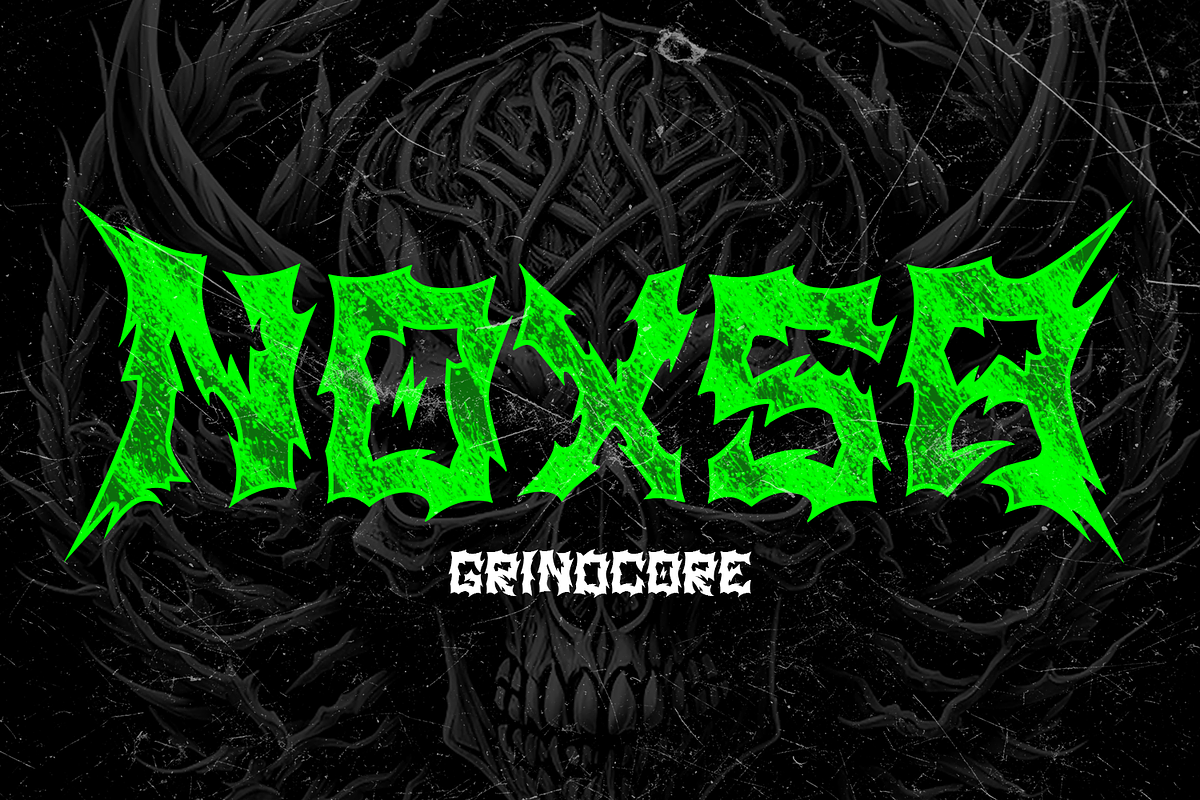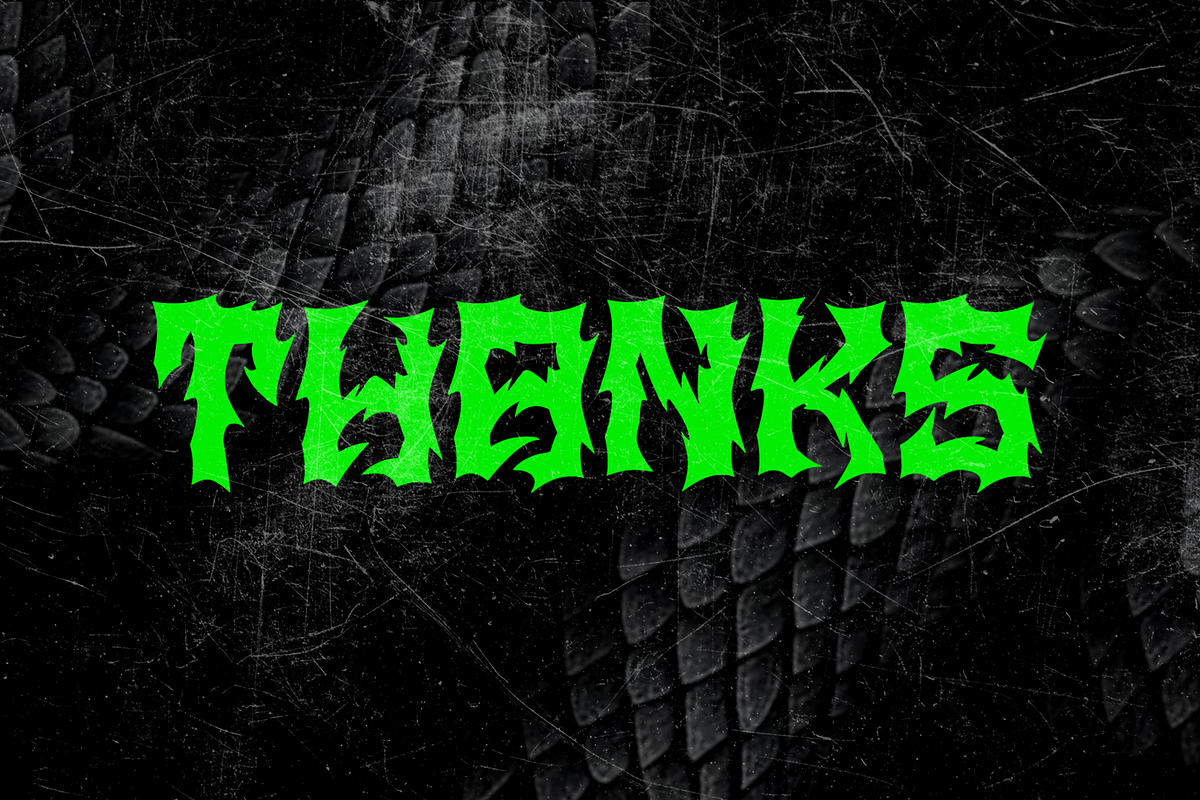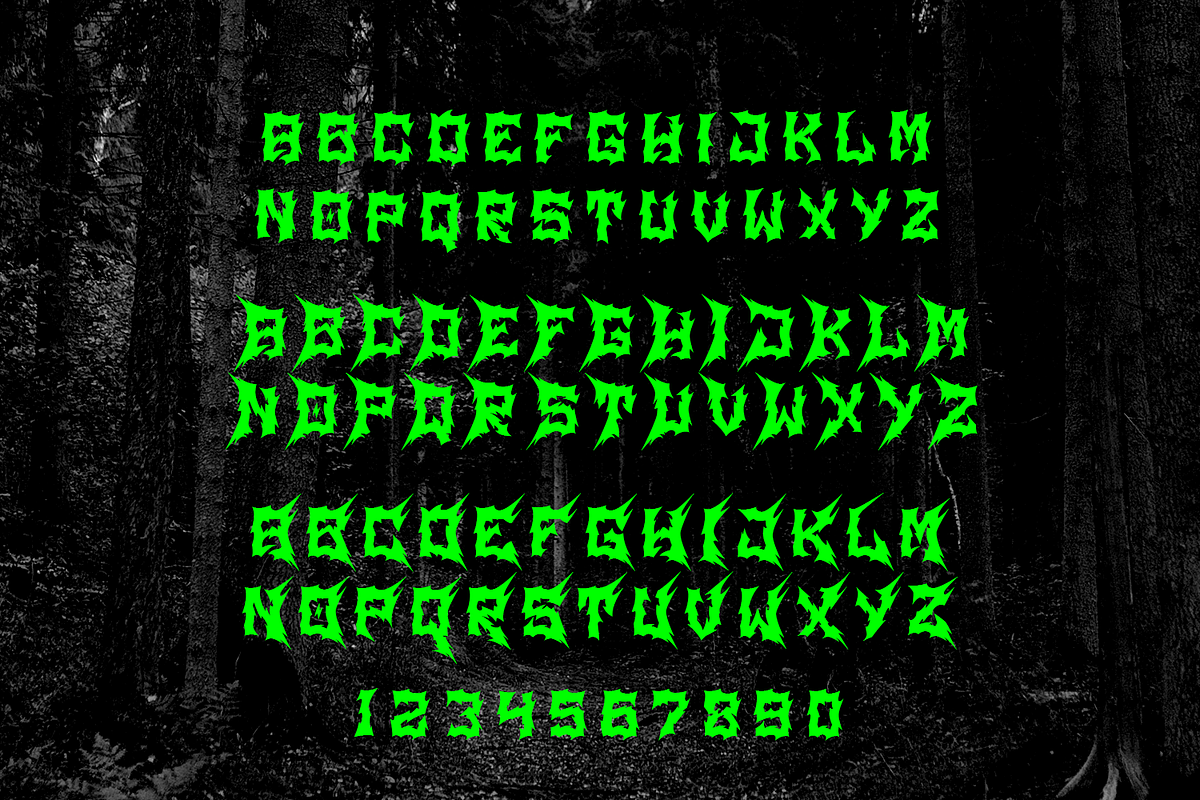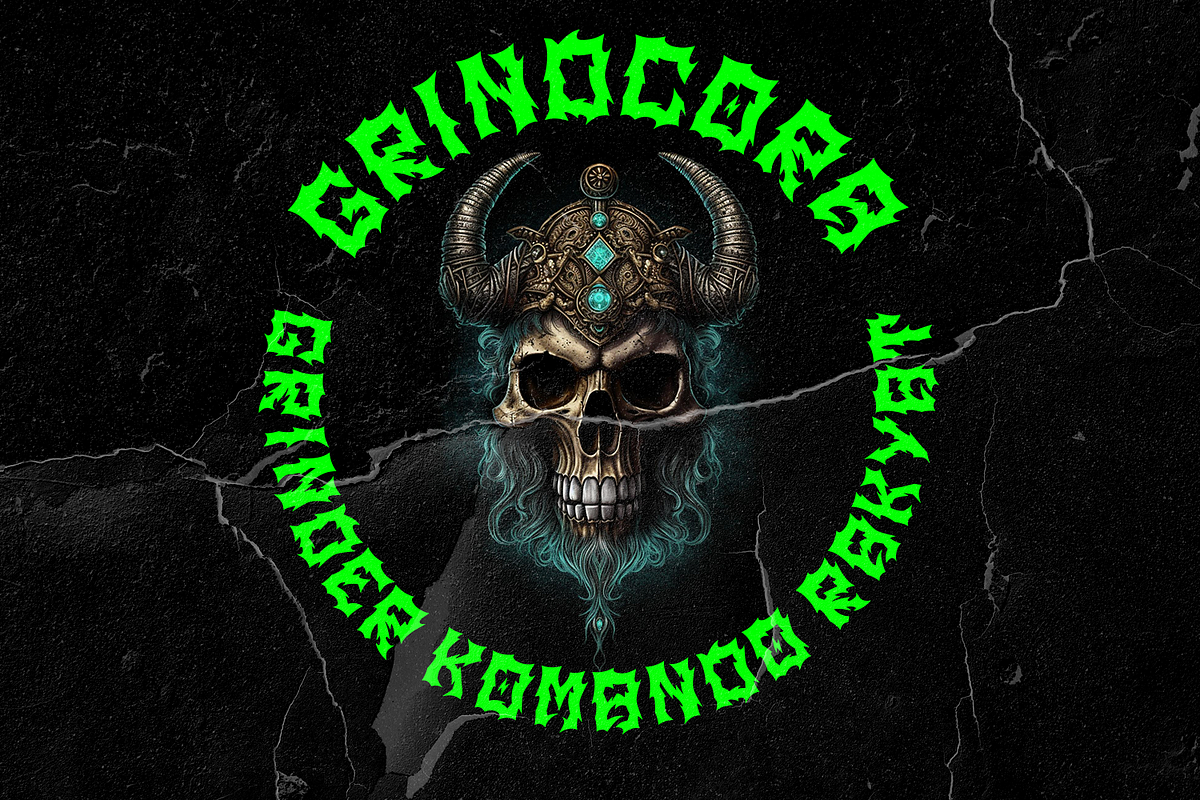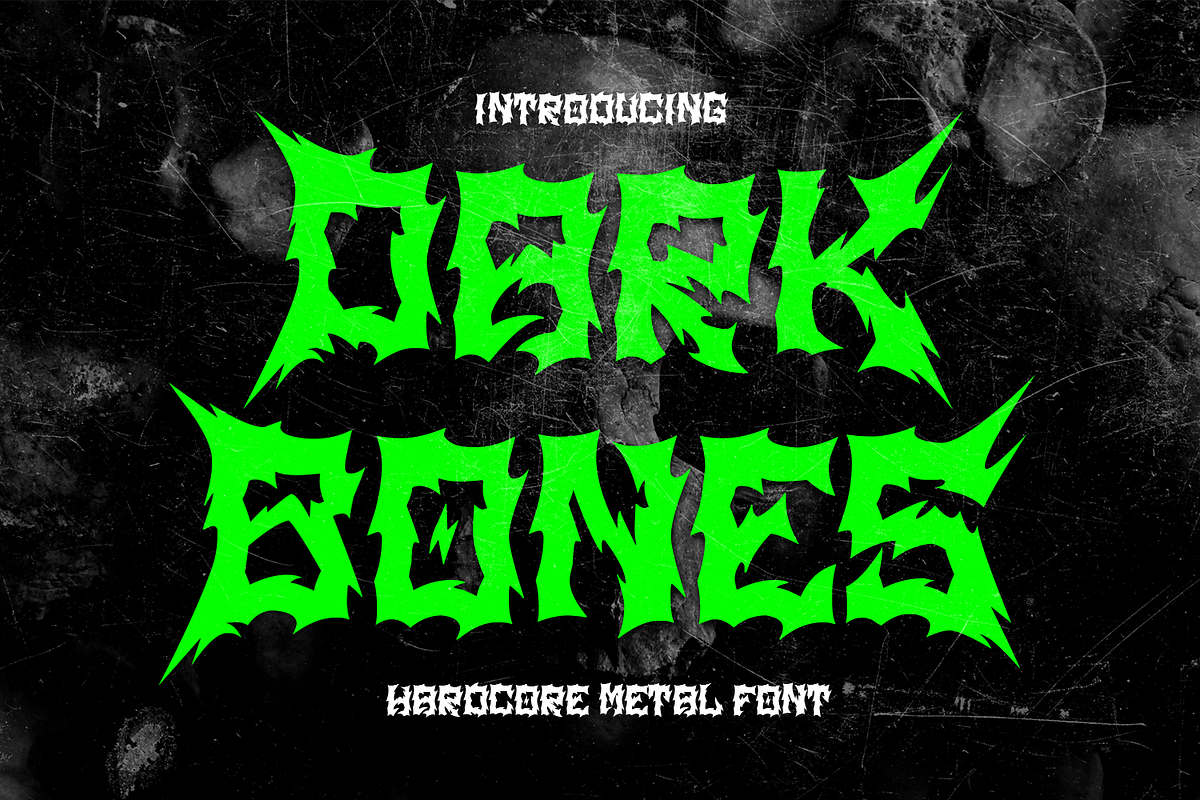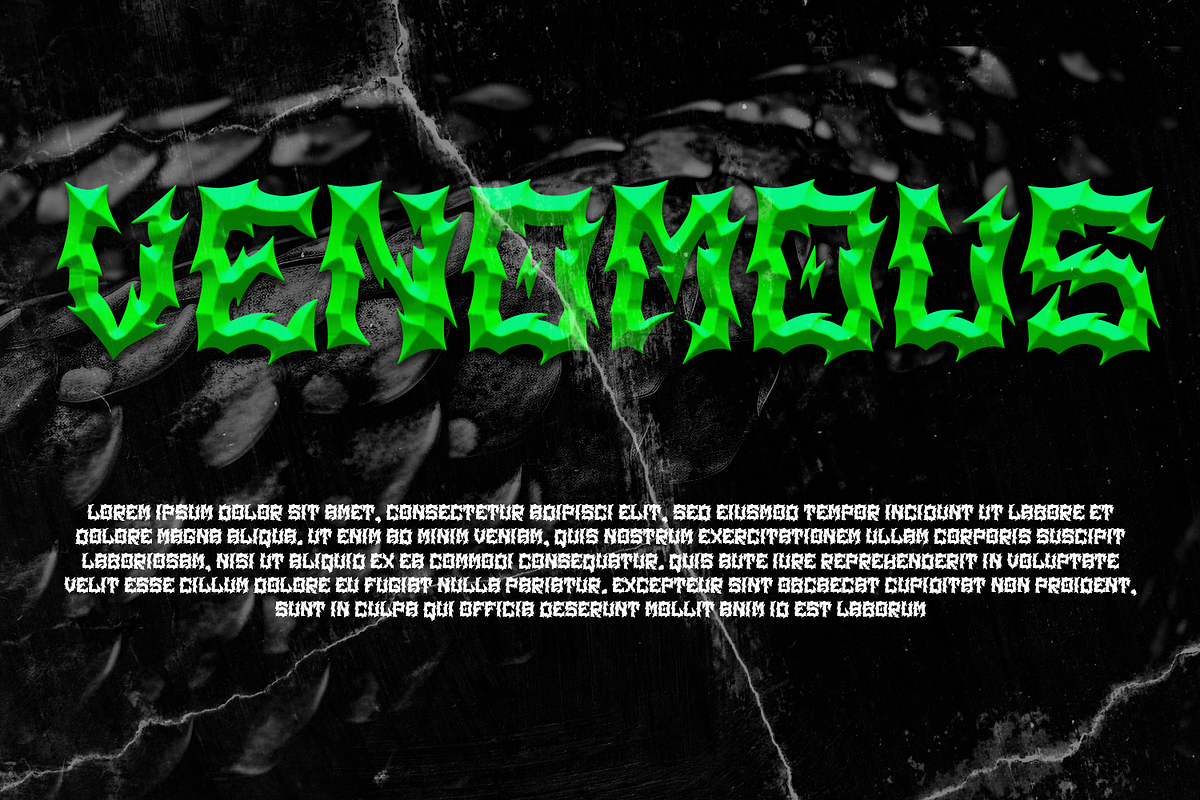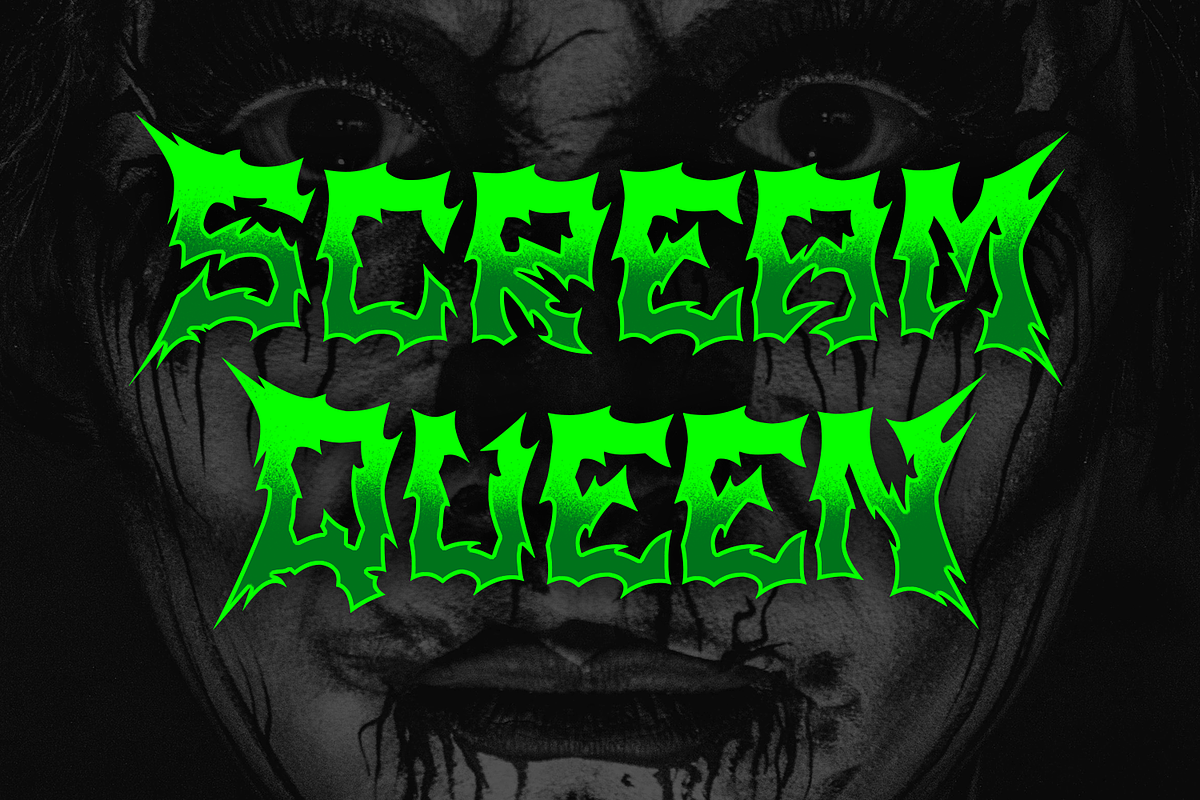
Dark Bones
Dark Bones is a powerful and visually stunning font that reflects the sharpness, ferocity and horror of your soul. Dark Bones is ideal for use in various projects, from logo design, music, events, branding to web design and other printed materials. With its bold and impressive appearance, Dark Bones is the perfect choice for your work.